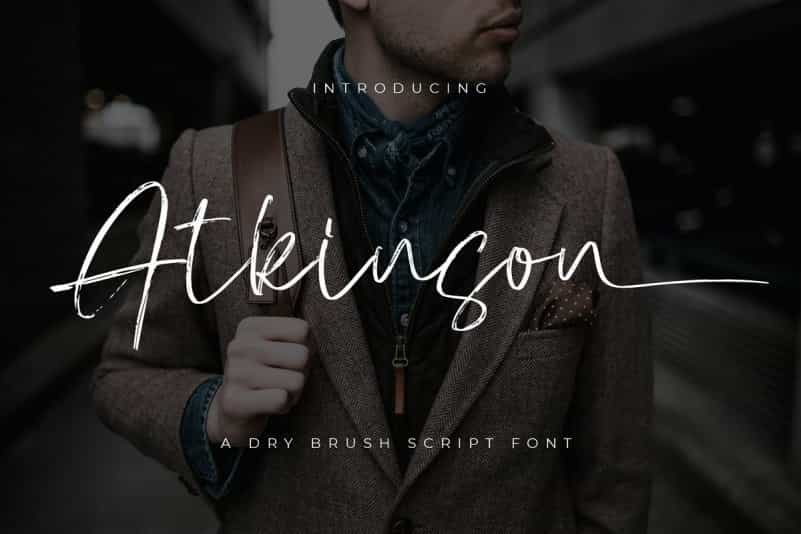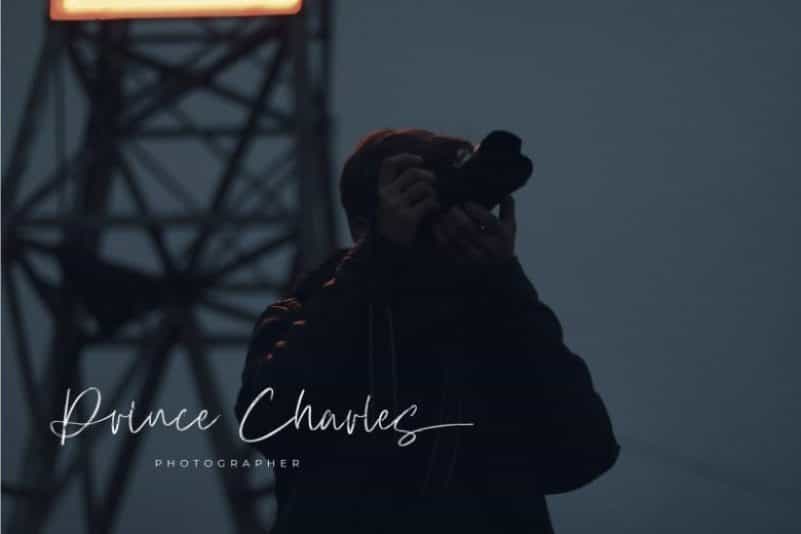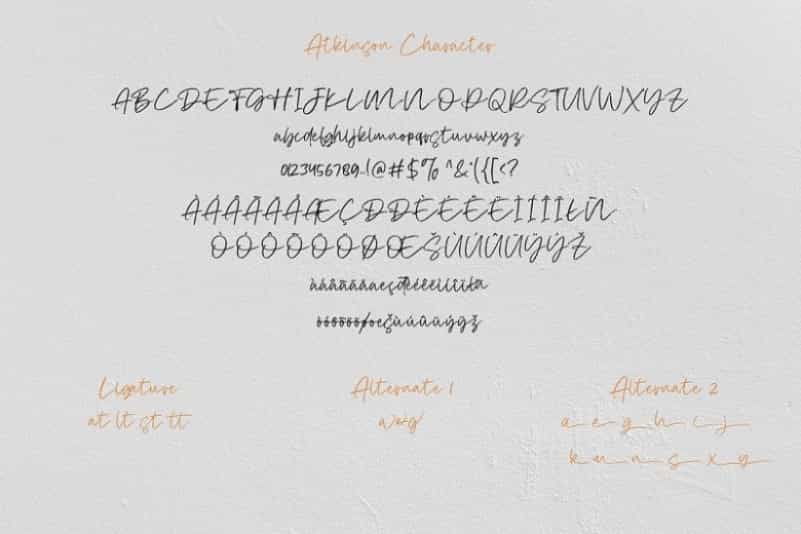
Discover Atkinson Dry Brush Script Font, part of the Brush Handwritten collection—a versatile and unique font perfect for adding a personal touch to your projects. Download it for free and enjoy crafting designs with style, from invitations to social media posts. This font is available exclusively for personal use, giving you the freedom to create without limits. Unlock your creativity with Atkinson Dry Brush Script Font today!
Atkinson is rough handwritten brush type font. Each letter has been designed carefully and is a perfect New font pairing. It’s got a natural look that makes it ideal for branding advertising, poster design and logos, book covers packaging, magazines web headers as well as greeting cards, designs for apparel merchandise, fashion-related campaigns and album covers, newsletters and quotes, and much more.